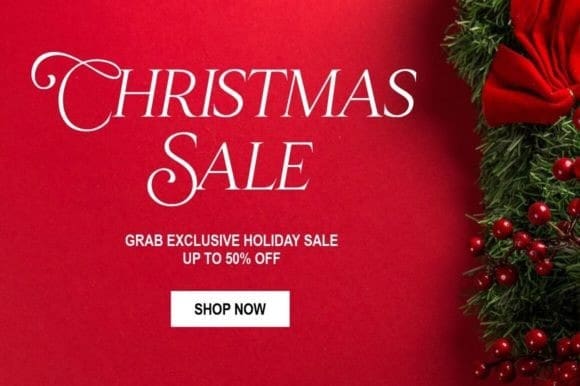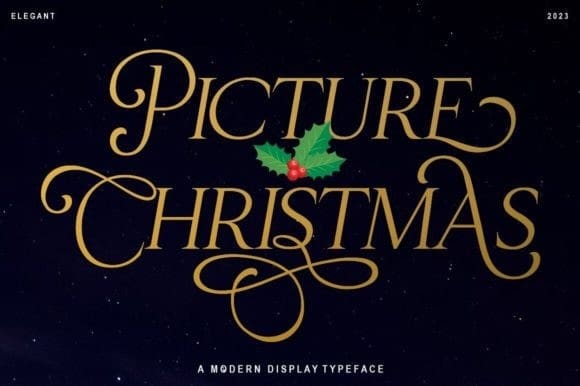
Christmas Picture Font
Christmas Picture Font a classical and fun serif italic version. It’s created specially for the Christmas Spirit. Christmas Picture is a great design choice this Xmas season for inspirational quote designs, logo designs, simple and classy Logos, web font, branding, product packaging, and much more. This font is PUA-encoded, which means you can easily access all of the glyphs!